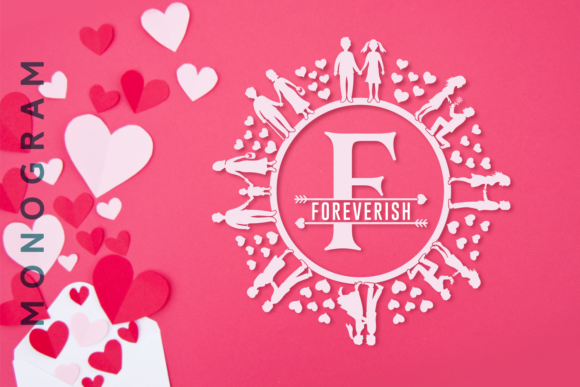
Dive into a realm of enchantment with Foreverish Font, a decorative treasure crafted by the ingenious minds at 7NTypes. Let your creativity take flight as you explore this romantic and intricate font, designed to ignite your imagination and transform your design endeavors into masterpieces.
Foreverish Font is an artistic masterpiece, a decorative font that dances along the baseline, infusing your designs with a luxurious spark that sets them apart from the ordinary. It's a symphony of flowing lines and captivating curves, a visual delight that will elevate your creations to new heights of elegance and sophistication.
Journey through the depths of Foreverish Font's character set, discovering a world of whimsical glyphs and enchanting ligatures that harmonize perfectly to create a mesmerizing visual tapestry. This font is a storyteller, whispering tales of timeless romance and unbridled joy. Let its enchanting characters carry your designs to realms of wonder and enchantment.
With Foreverish Font, you'll find endless possibilities for artistic expression. Craft captivating logos that exude a sense of timeless charm, design stunning wedding invitations that radiate elegance, and create T-shirt designs that capture the essence of romance and adventure. The sky's the limit with this versatile font, your imagination the only boundary.
Unleash your creativity and embark on a voyage of visual exploration. Let Foreverish Font guide you, inspiring you to create designs that resonate with emotion, captivate audiences, and leave an indelible mark on the world. It's a font that sparks a creative revolution, transforming your ideas into tangible works of art.
Embrace the allure of Foreverish Font, a decorative masterpiece that will elevate your designs to new heights. It's a font that speaks to the heart, captivates the senses, and leaves a lasting impression. Immerse yourself in its romantic charm and allow your creativity to flourish like never before.
Take the plunge and adorn your design projects with the timeless beauty of Foreverish Font. Let its enchanting characters dance across your creations, captivating audiences and leaving them spellbound by your artistic vision. This font is your gateway to a world of endless creative possibilities, an investment in your artistic journey that will yield dividends of stunning designs and satisfied clients.